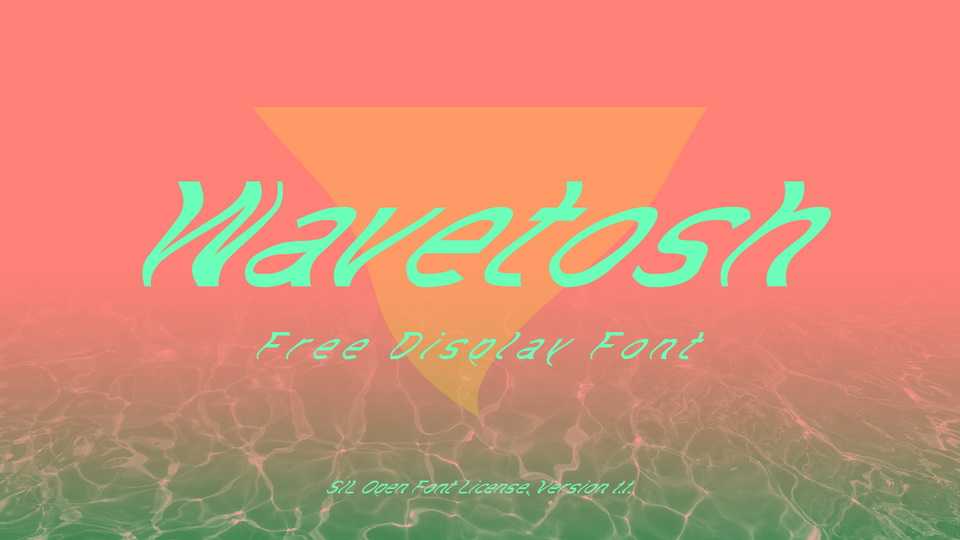
Download Wavetosh font, a distorted display typeface inspired by synthwave. With its wavy vibe Wavetosh font is best suited for posters, album artworks and short text as an eye-catching accent.